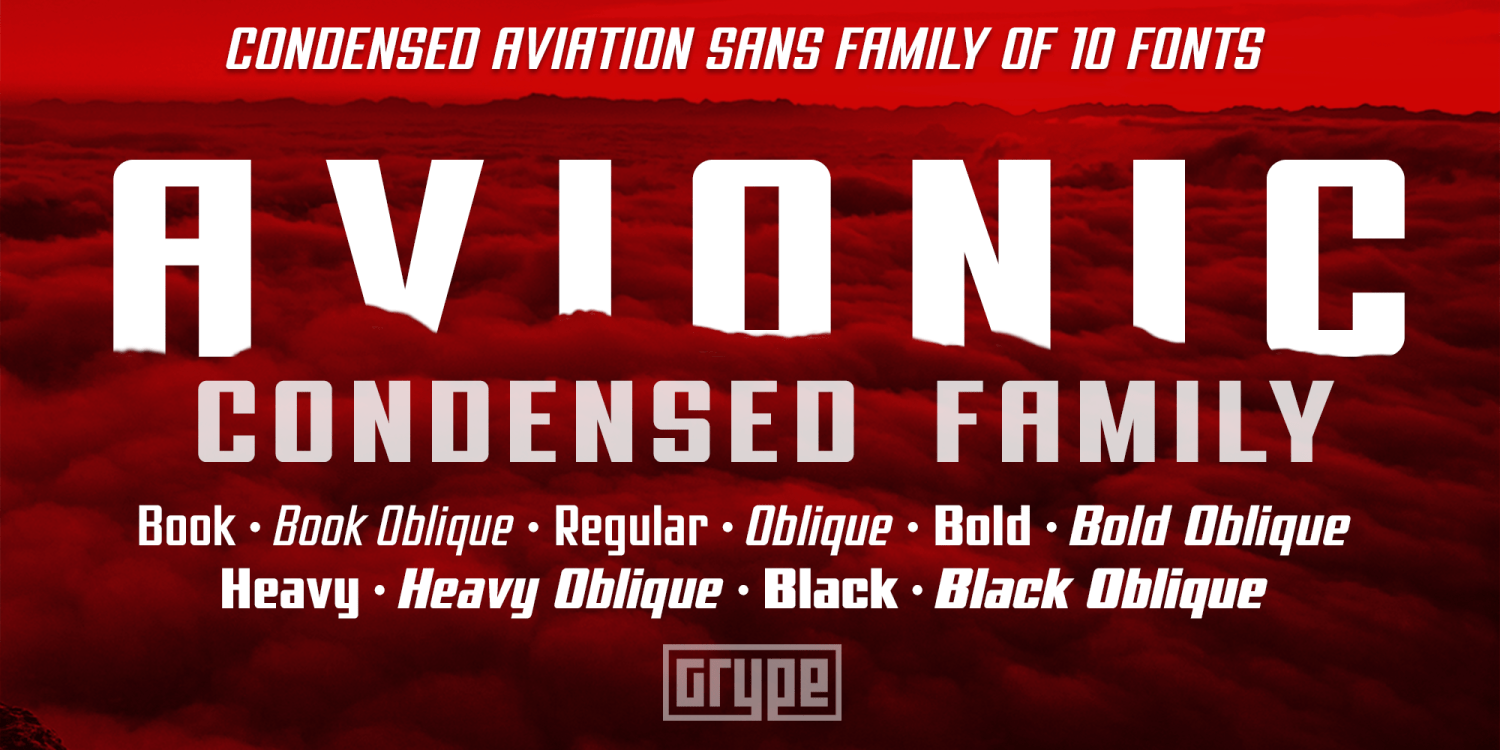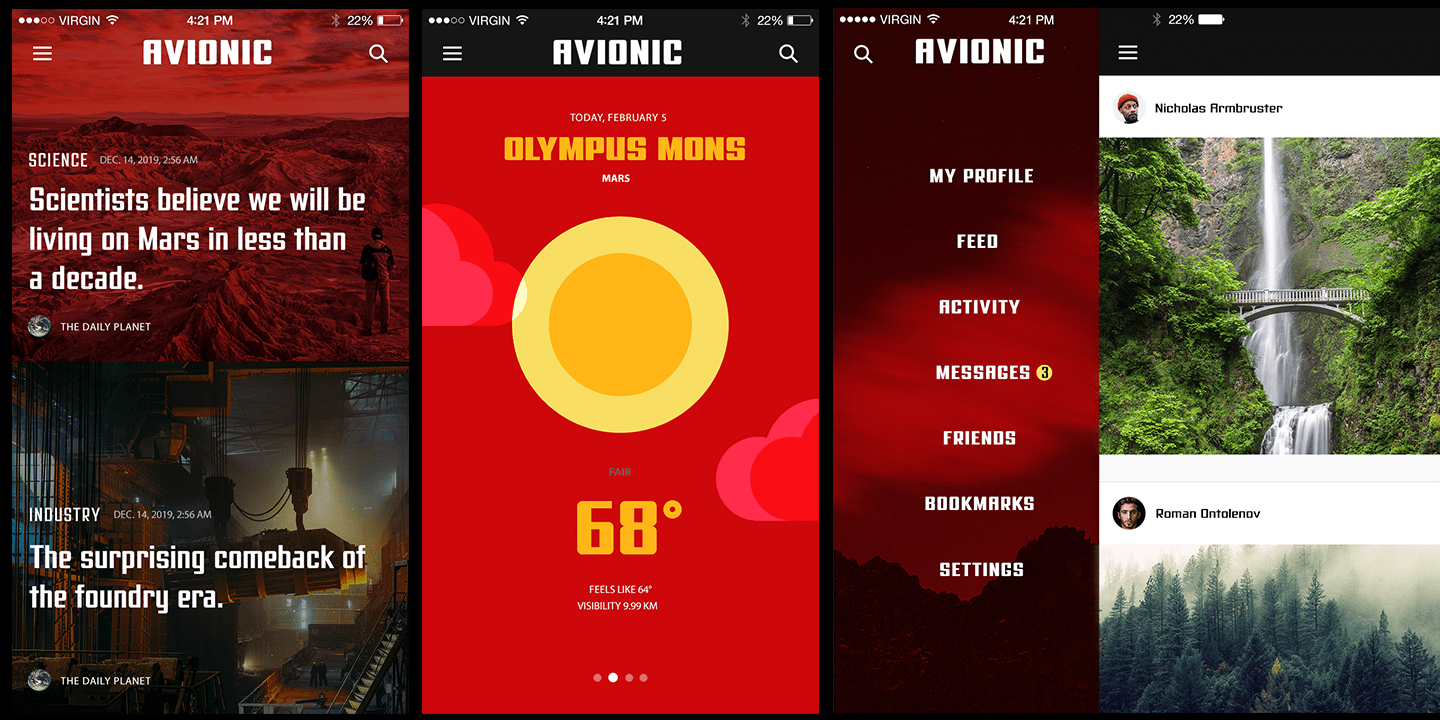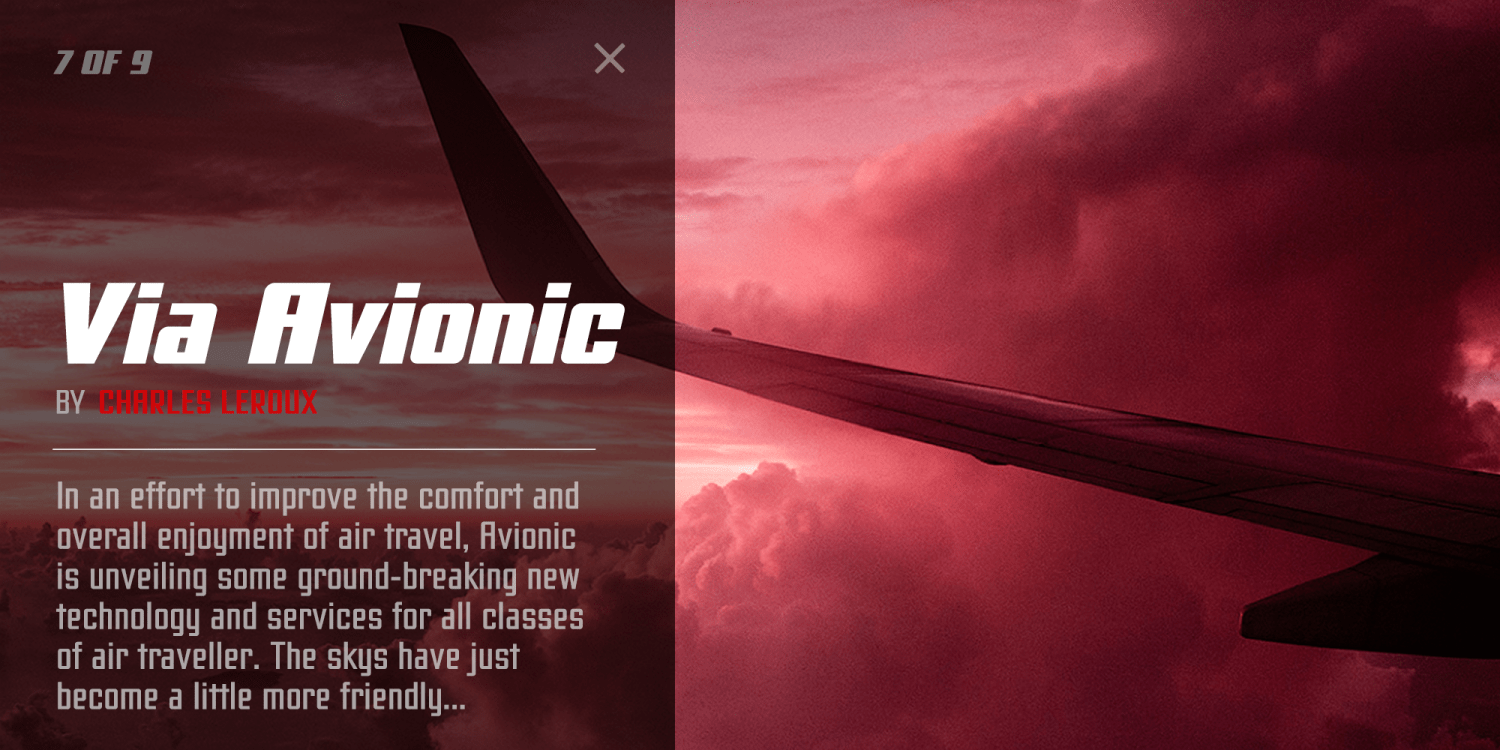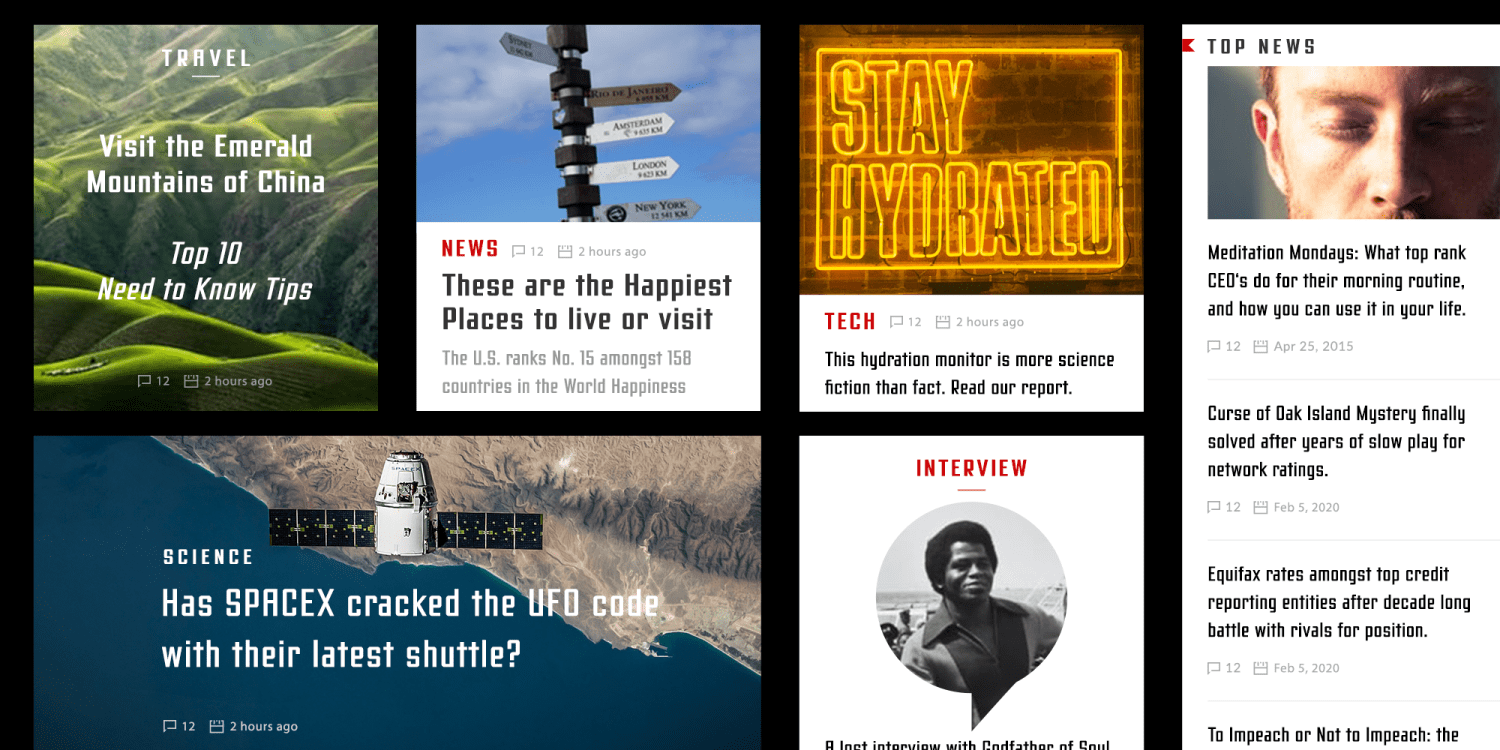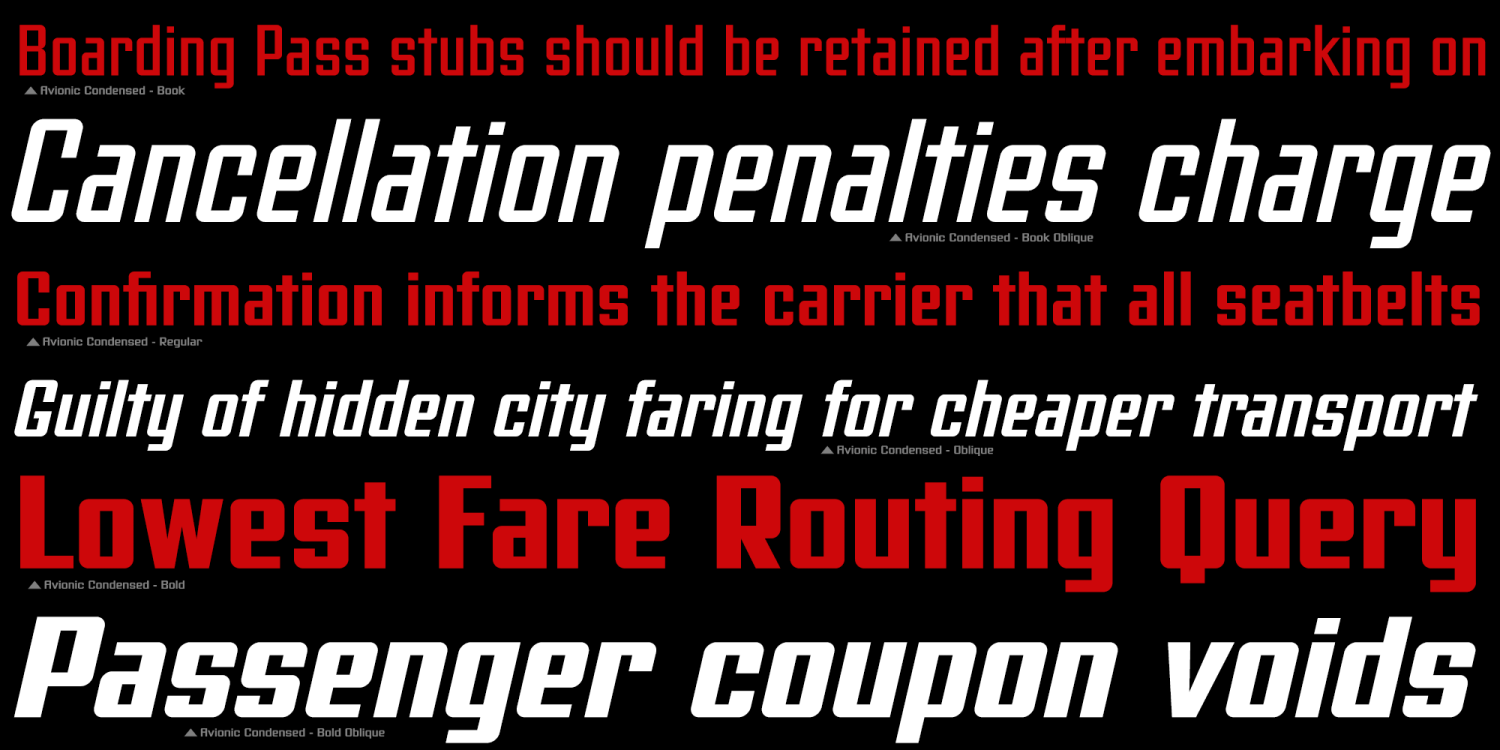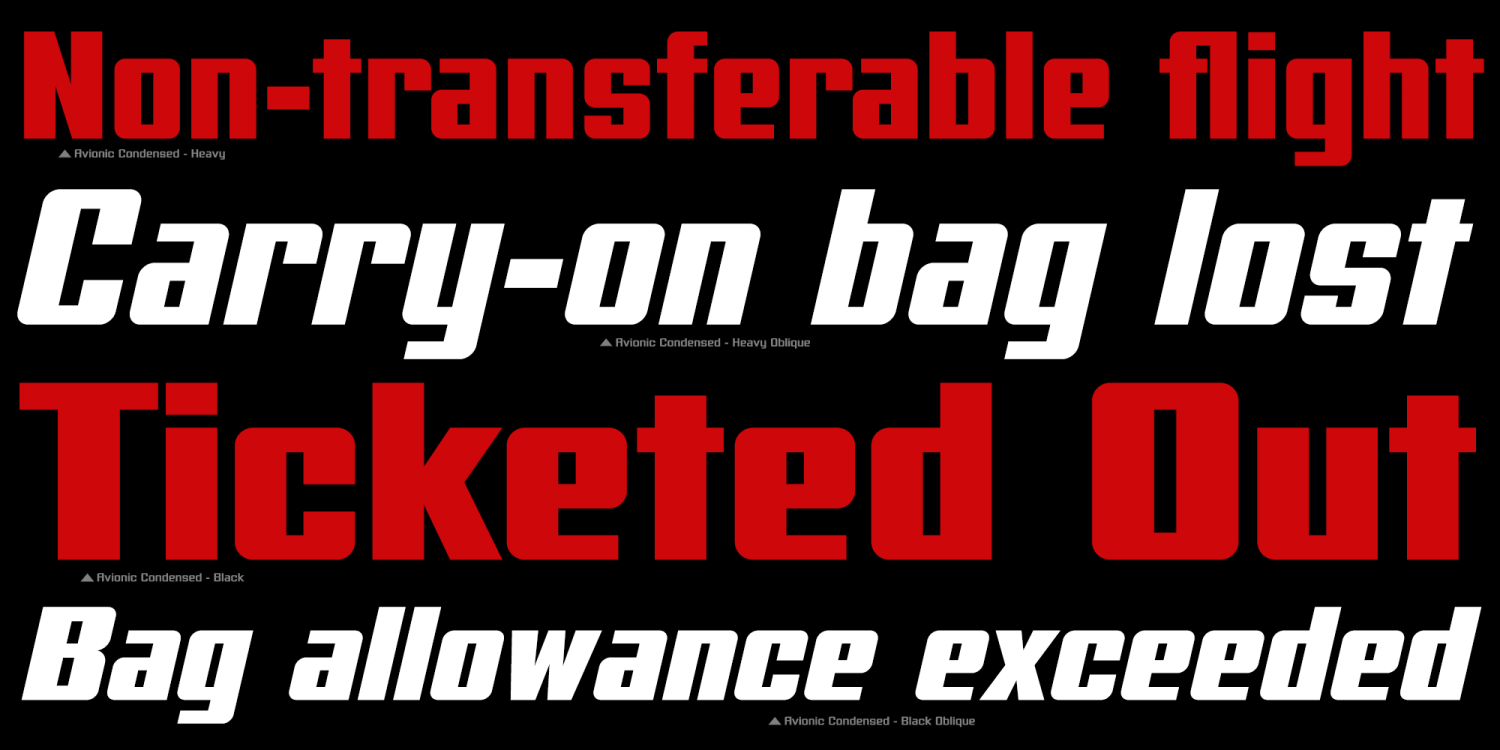
Avionic Condensed
Font Family by Grype
The aviation world contains loads of stylish logotypes, from handwritten scripts to geometric styles and so on. The Avionic Condensed family of 10 fonts finds its origins of inspiration in the Air China company logotype, and from there has been expanded upon to create a large stylistic family of 40 fonts.
Avionic Condensed celebrates the geometric sans serif styling of the original logotype, evolving beyond the condensed all capital set logo to include a lowercase designed in parity with the original design style, as well as many weights and widths to offer a fresh diversity. Each subfamily includes a full standard character set with expansive international support of latin based languages, and 5 weights jumping from book to black, along with 5 accompanying obliques. This family is ready to chart a course for your design destination, whatever it may be.
? 370 glyphs per style - including Capitals, Lowercase, Numerals, Punctuation and an extensive character set that covers multilingual support of latin based languages.
? 5 weights in each subfamily: Book, Regular, Bold, Heavy, & Black.
? 4 widths in the collection: Condensed, Regular, Wide, and Extra Wide.
? Accompanying Obliques with each weight/width style.
? You're in need of a dynamic geometric font with a variety of weights and widths for your designs
? You're an aviation junkie and have to have anything inspired by Air China
? You love the style of Bank Gothic, but really want something just a little different
? You are looking for a pseudo-techno style font family with versatility